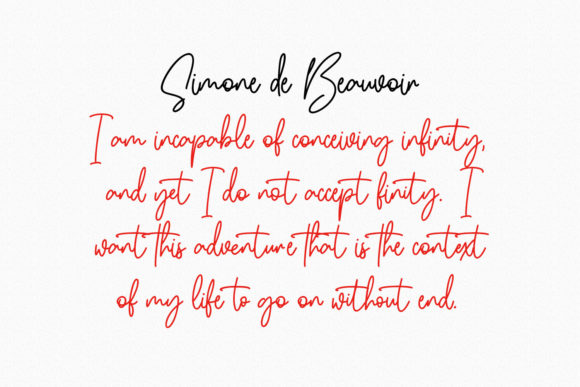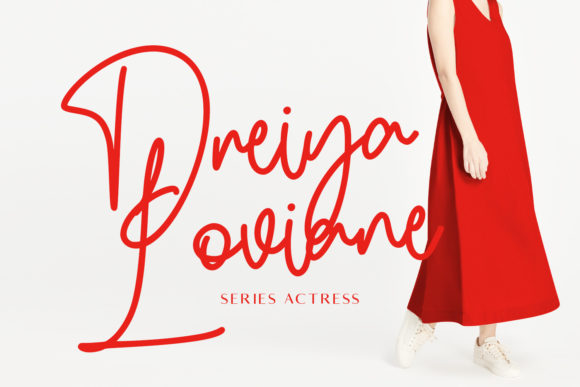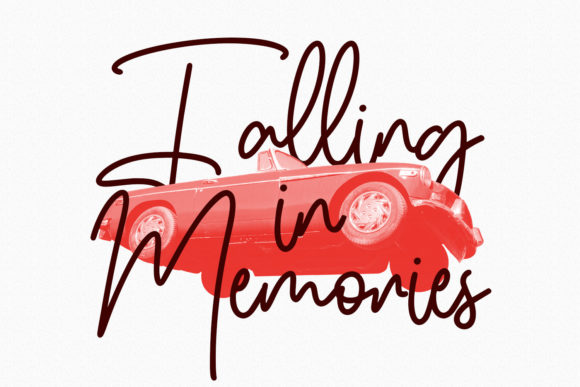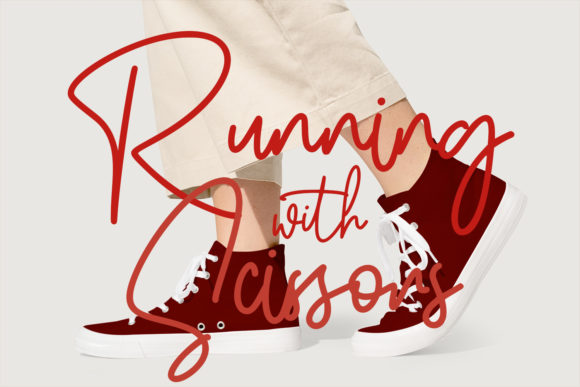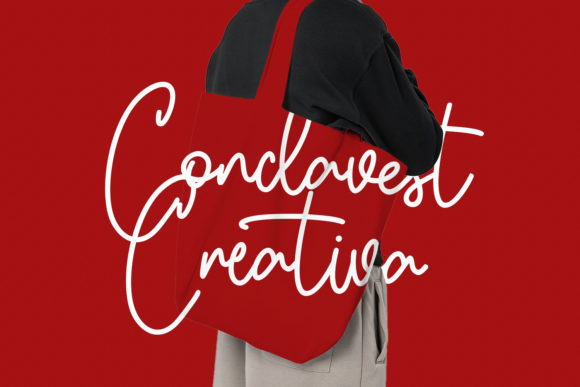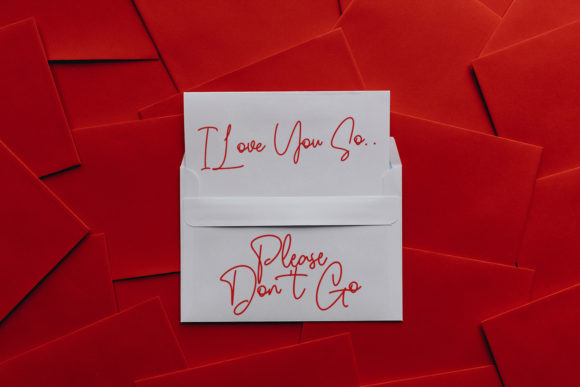
Introducing Binthrots Script Font: Elevate Your Designs with Elegance
Are you a designer or crafter looking for a font that can add a touch of sophistication and elegance to your creative projects? Look no further than Binthrots Script Font. This beautiful, delicate, and flowing handwritten font is perfect for a wide range of designs, from wedding invitations and branding materials to digital products and craft projects.
The Beauty of Binthrots Script Font
Binthrots Script Font is a stunning example of a handwritten font that exudes elegance and refinement. Its delicate and flowing lines make it perfect for designs that require a touch of sophistication. The font has beautiful and well-balanced characters, which ensure that it matches a wide pool of designs. Whether you’re creating a logo, a brochure, or a social media graphic, Binthrots Script Font is sure to make your design stand out.
What Makes Binthrots Script Font So Versatile?
One of the key features that make Binthrots Script Font so versatile is its ability to work well with a wide range of designs. Its elegant and flowing lines make it perfect for:
- Digital products, such as ebooks and courses
- Craft projects, such as handmade cards and scrapbooking
Whether you’re creating a formal or informal design, Binthrots Script Font is sure to add a touch of elegance and sophistication.
How to Use Binthrots Script Font in Your Designs
Using Binthrots Script Font in your designs is easy. Here are a few tips to get you started:
- Pair it with a bold font: Binthrots Script Font works well with bold fonts, such as sans-serif fonts, to create a striking contrast.
- Use it as a headline font: Binthrots Script Font is perfect for headlines and titles, where its elegant lines can really shine.
- Add it to your branding materials: Use Binthrots Script Font to create a consistent look across all your branding materials, from business cards to brochures.
Why Choose Binthrots Script Font?
There are many script fonts available, but Binthrots Script Font stands out from the crowd. Here are a few reasons why:
- Unique and elegant design: Binthrots Script Font has a unique and elegant design that will make your designs stand out.
- High-quality characters: The font has beautiful and well-balanced characters, which ensure that it works well in a wide range of designs.
- Easy to read: Despite its elegant lines, Binthrots Script Font is easy to read, making it perfect for body text as well as headlines.
Binthrots Script Font is a beautiful and elegant handwritten font that can add a touch of sophistication to any design. Its delicate and flowing lines make it perfect for a wide range of designs, from wedding invitations and branding materials to digital products and craft projects. With its unique and elegant design, high-quality characters, and ease of use, Binthrots Script Font is a must-have for any designer or crafter looking to elevate their designs.